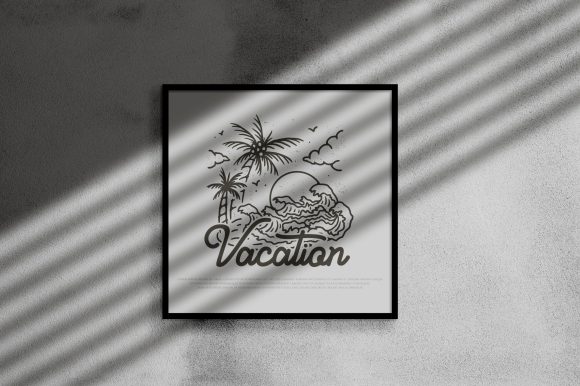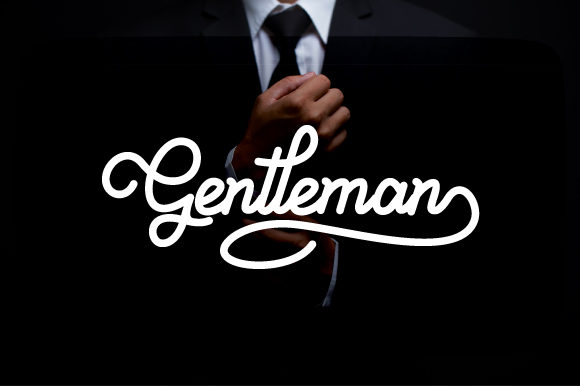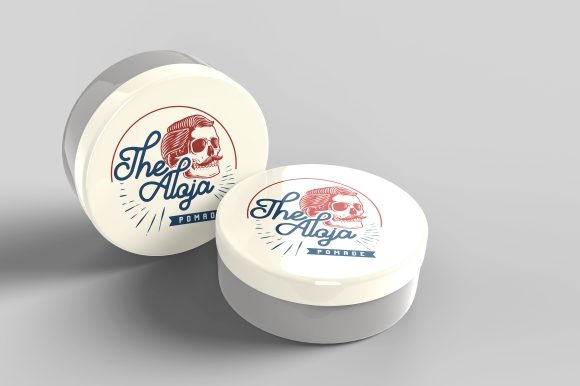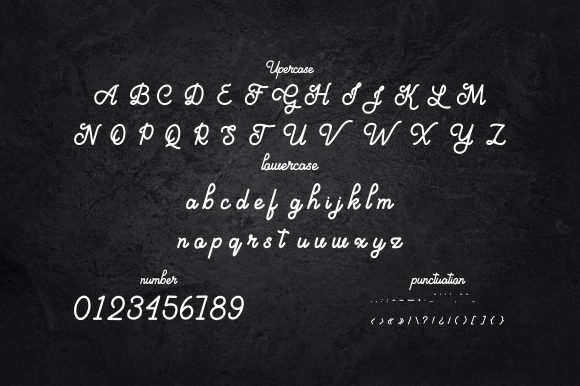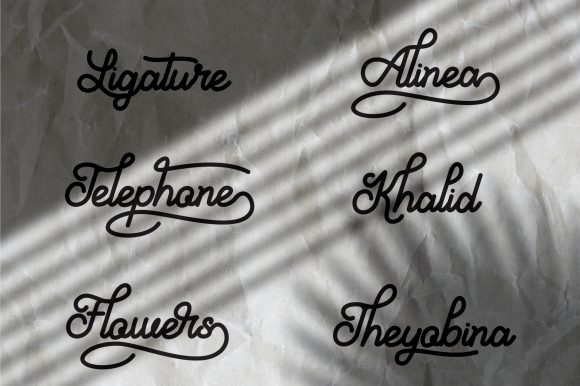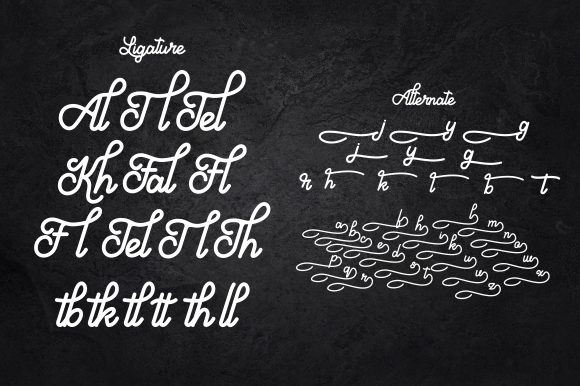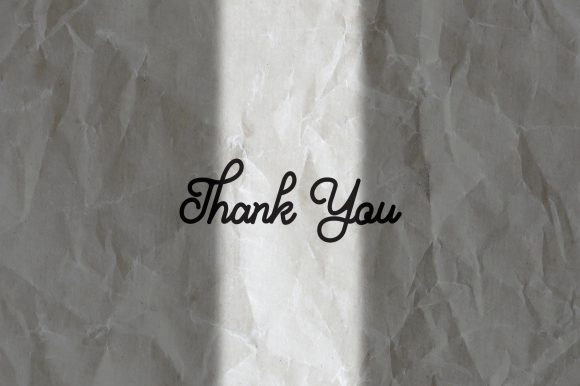
Aloritma Font
About Aloritma Font
Aloritma is a sweet, soft hand-lettered handwritten font. The playful rounded characters make it the perfect font for creating amazing designs!